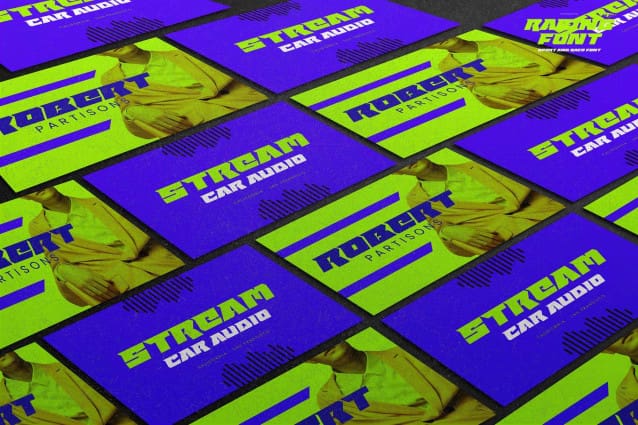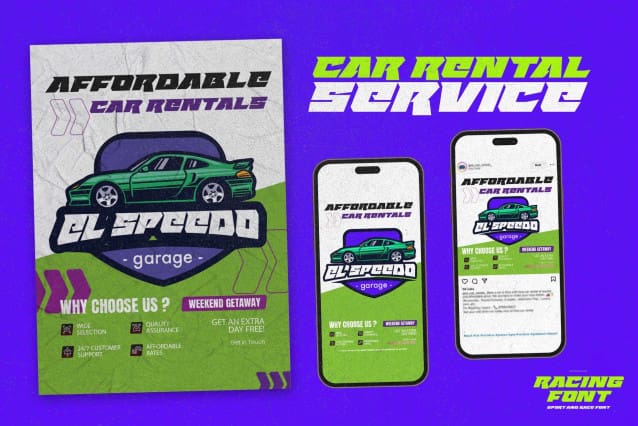
Racing Sport And Racing Font
Racing Sport And Racing Font, with simple font and dynamic style, this font is perfect for making a strong statement in your designs.
Add the bold and authentic character of this Font to your next project and capture the essence of the minimalist aesthetic.